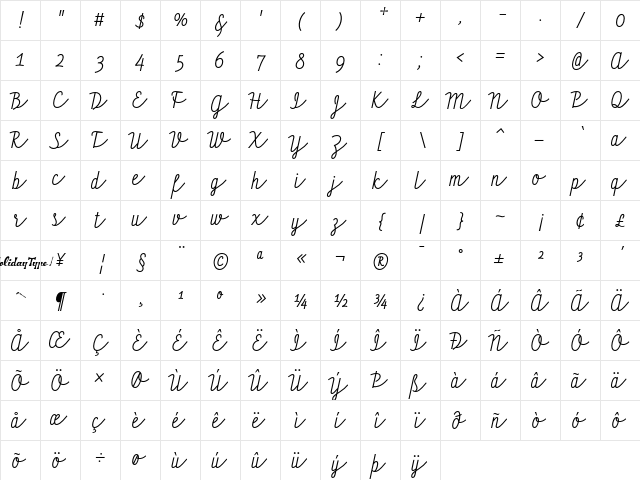
HT Profumeria Regular
| Foundry | Ryoichi Tsunekawa |
| Designer | Ryoichi Tsunekawa |
Design Context for HT Profumeria Typeface
HT Profumeria takes a measured approach to typography — its balanced proportions and neutral character make it a reliable workhorse for both digital and print work.